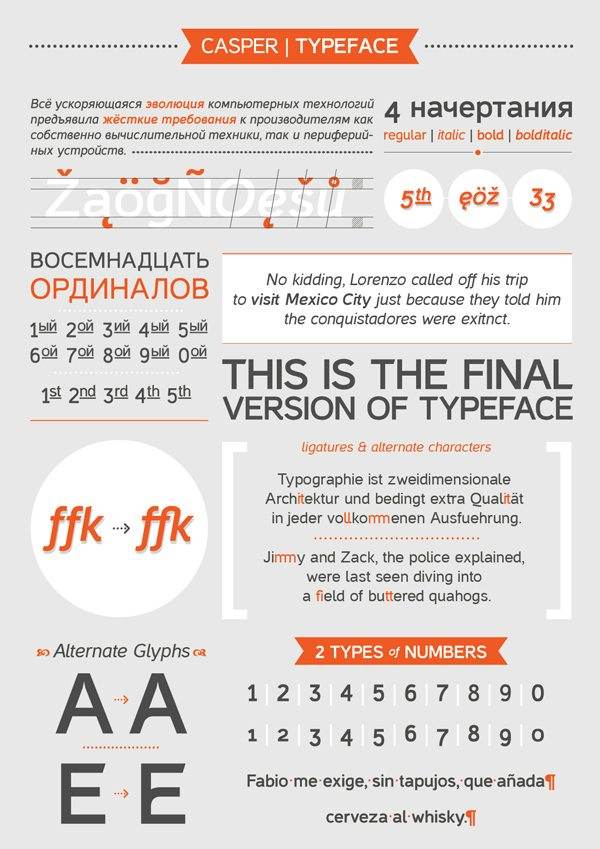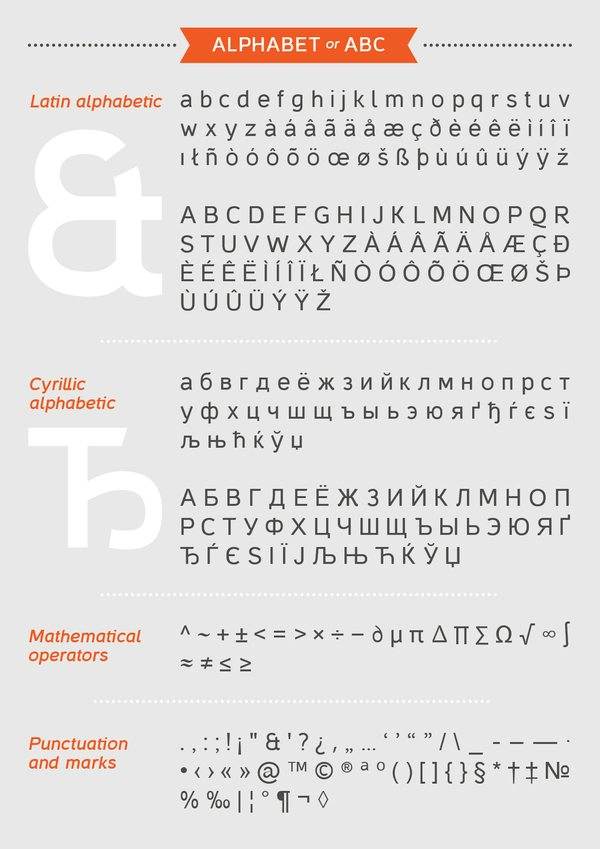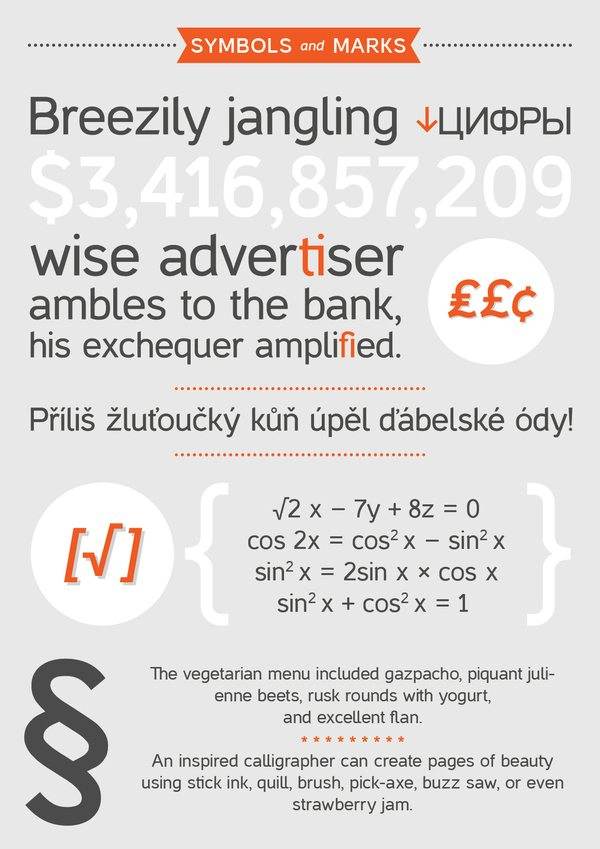
Casper Font
It still has elements of different styles, but Casper has become more holistic and harmonious.Includes arrows, alternate characters and signs, and legatury ordinals. Total 582 glyph.